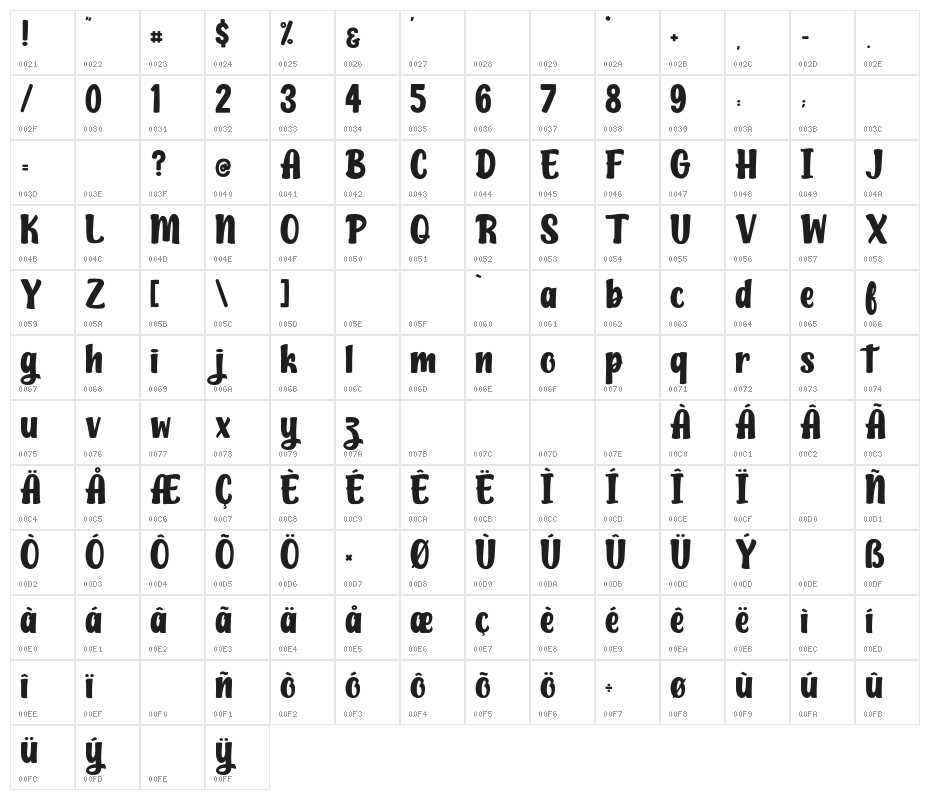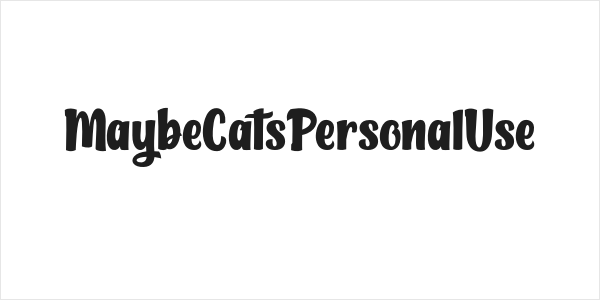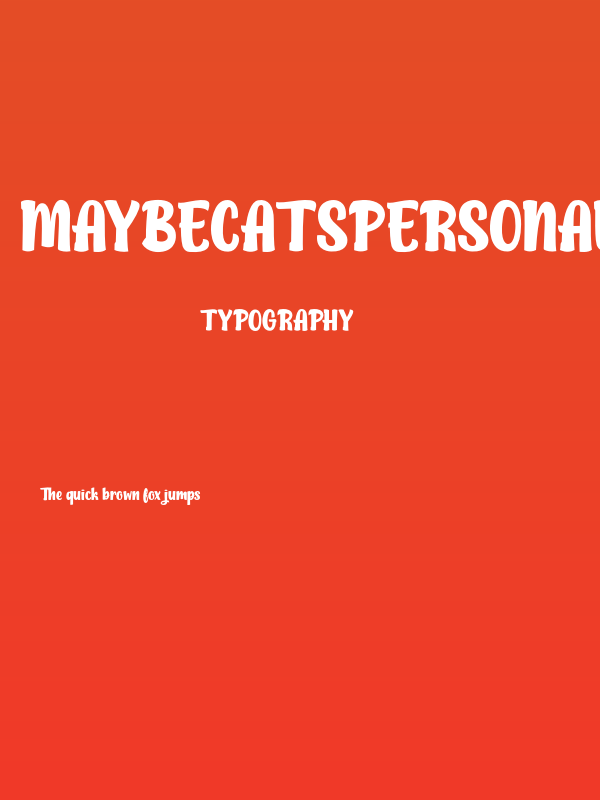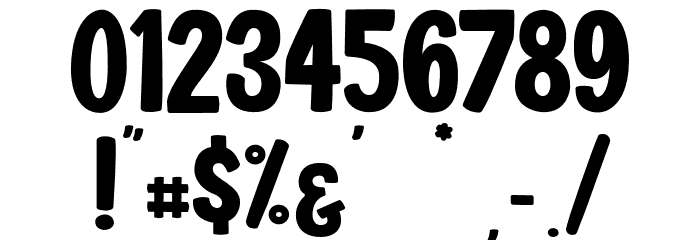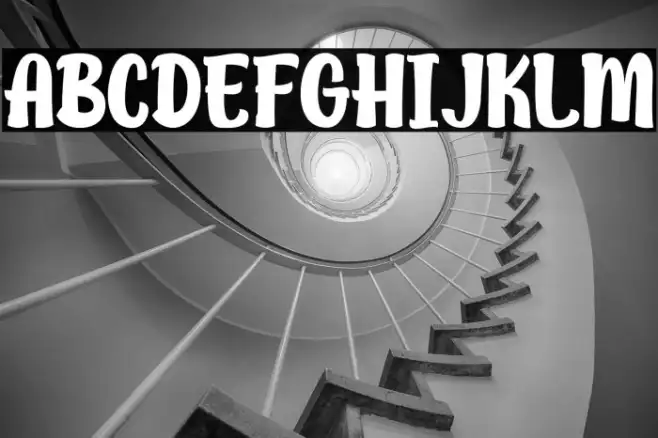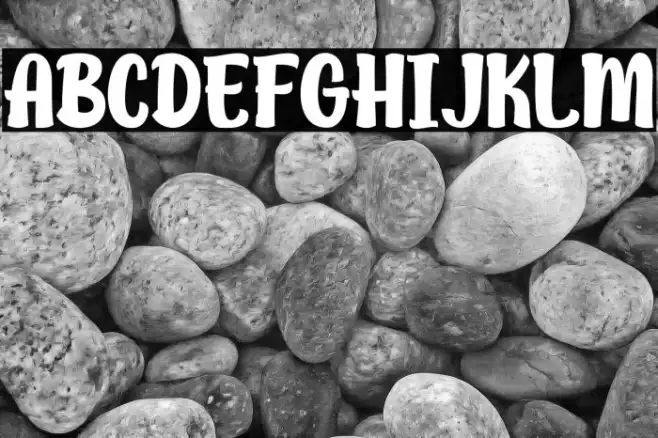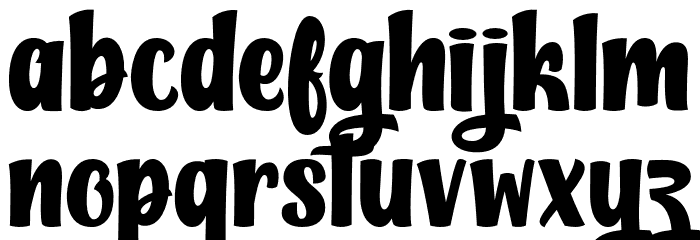
MaybeCatsPersonalUse Font
MaybeCatsPersonalUse Description
This font features a bold and playful style with a strong presence. The letters are rounded and slightly condensed, giving a sense of friendliness and approachability. The uppercase letters are uniform in height, while the lowercase letters have a whimsical touch with some characters having unique flourishes. The numbers are bold and consistent with the overall style, ensuring readability. Special characters are creatively designed, maintaining the playful essence of the font. This font is ideal for projects that require a fun and engaging visual appeal.
| Overall Style | Playful, Fun |
| Proposed Projects | Ideal for children's books, playful branding, posters, and social media graphics. |